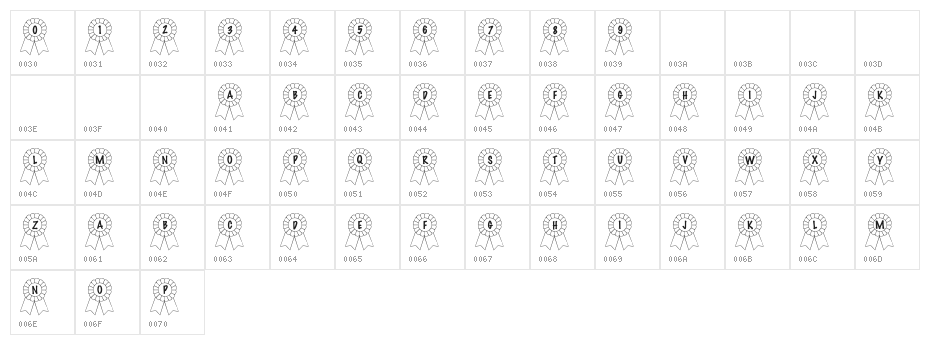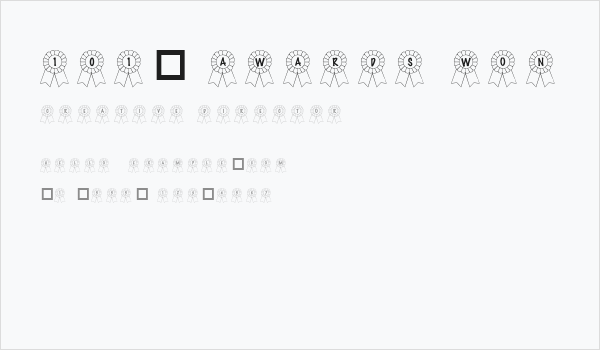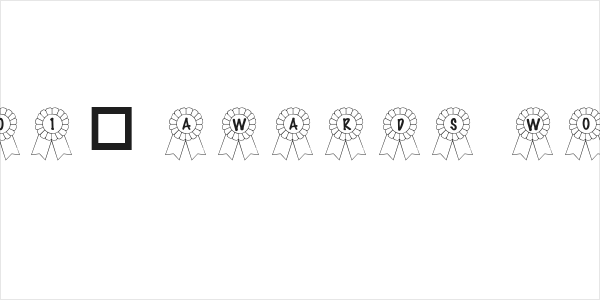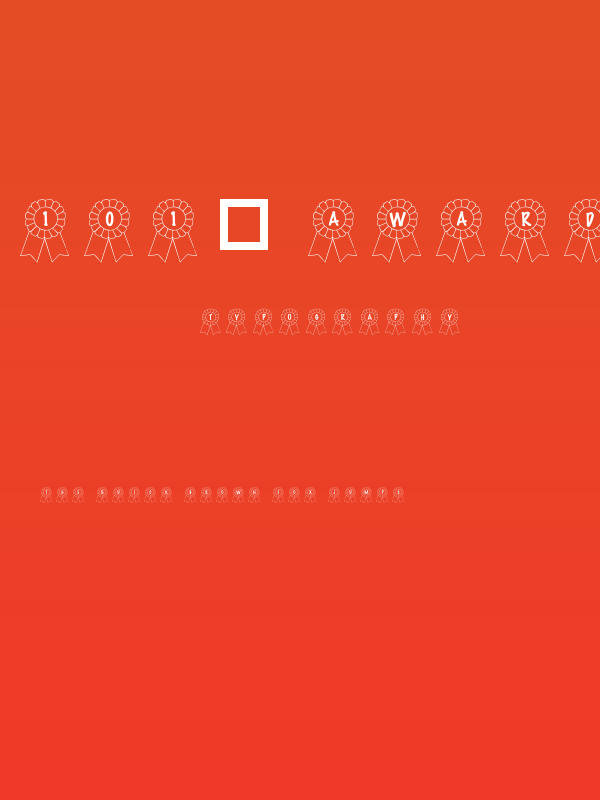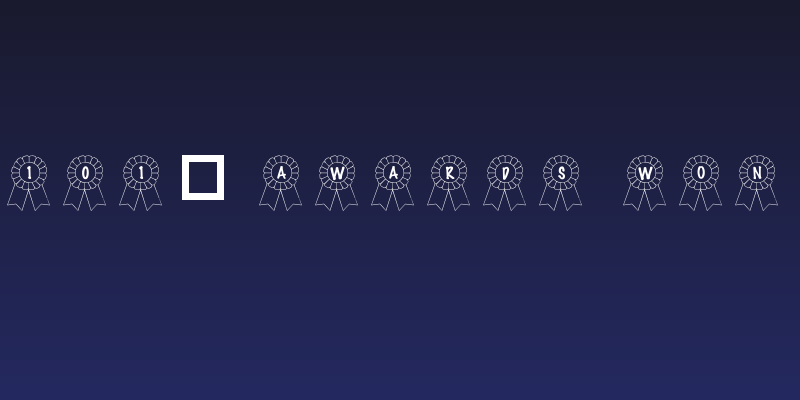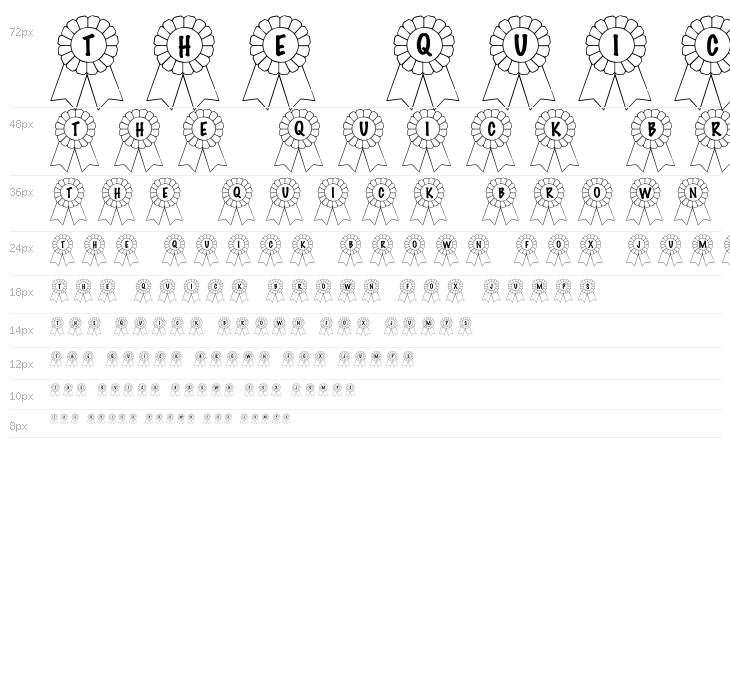
101! Awards Won Font
101! Awards Won Description
This font features characters enclosed within award ribbon designs, giving it a unique and celebratory appearance. Each letter and number is centered within a detailed ribbon, complete with a scalloped edge and two tails, creating a sense of achievement and festivity. The characters themselves are bold and clear, ensuring readability while maintaining the decorative theme. This font is ideal for projects that aim to convey a sense of accomplishment or celebration, such as certificates, event invitations, or promotional materials for award ceremonies. The overall style is decorative, with a playful yet formal tone, making it suitable for both casual and formal contexts.
| Proposed Projects | Certificates, event invitations, award ceremony materials, promotional content. |